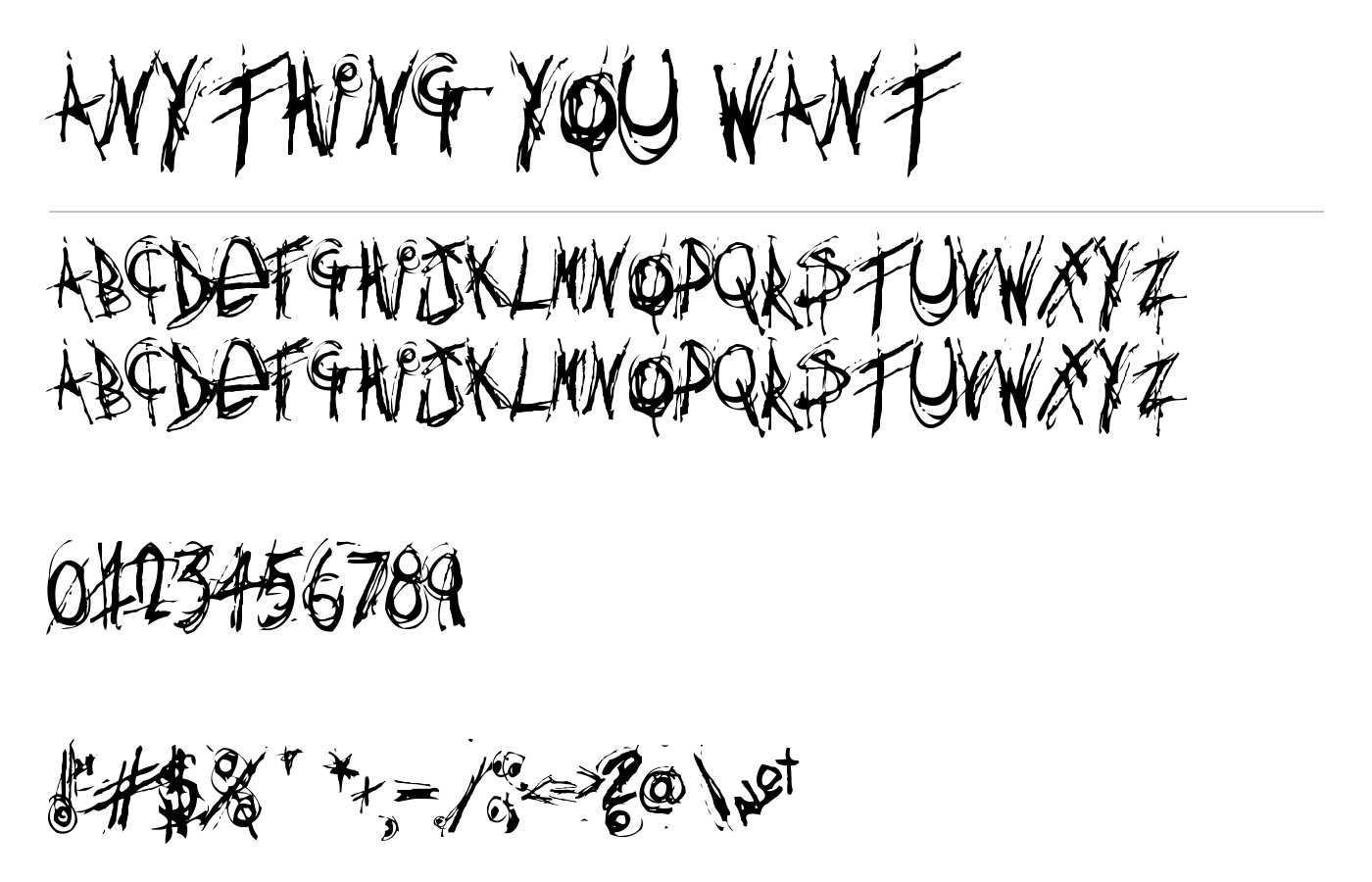
Anything You Want Font is a highly expressive, hand-drawn sans serif typeface with a rough, jagged stroke style that gives it a raw, edgy, and slightly chaotic feel. Its tall, narrow letterforms and irregular shapes make it perfect for creating striking headlines or graphic designs that convey energy, rebellion, or a horror-like atmosphere. This font is ideal for creative projects that need a bold, unconventional look rather than polished readability.
Anything You Want Font
About Anything You Want Font